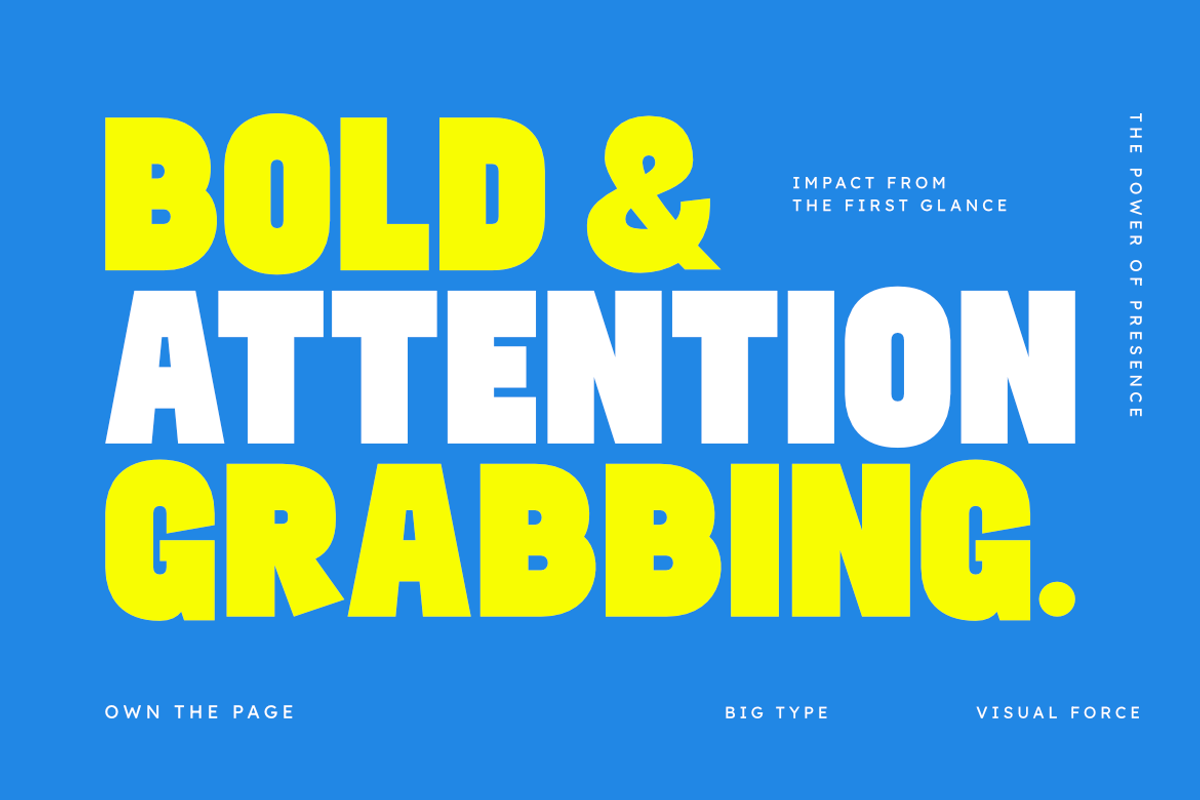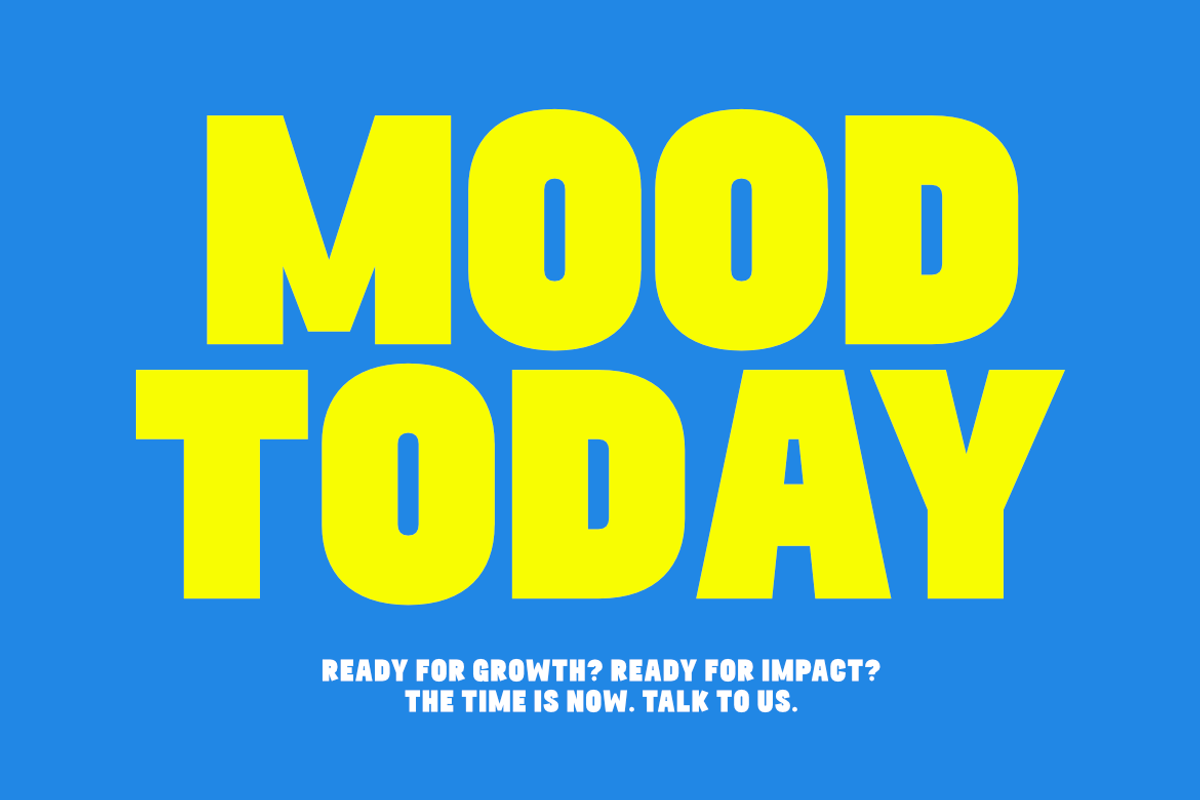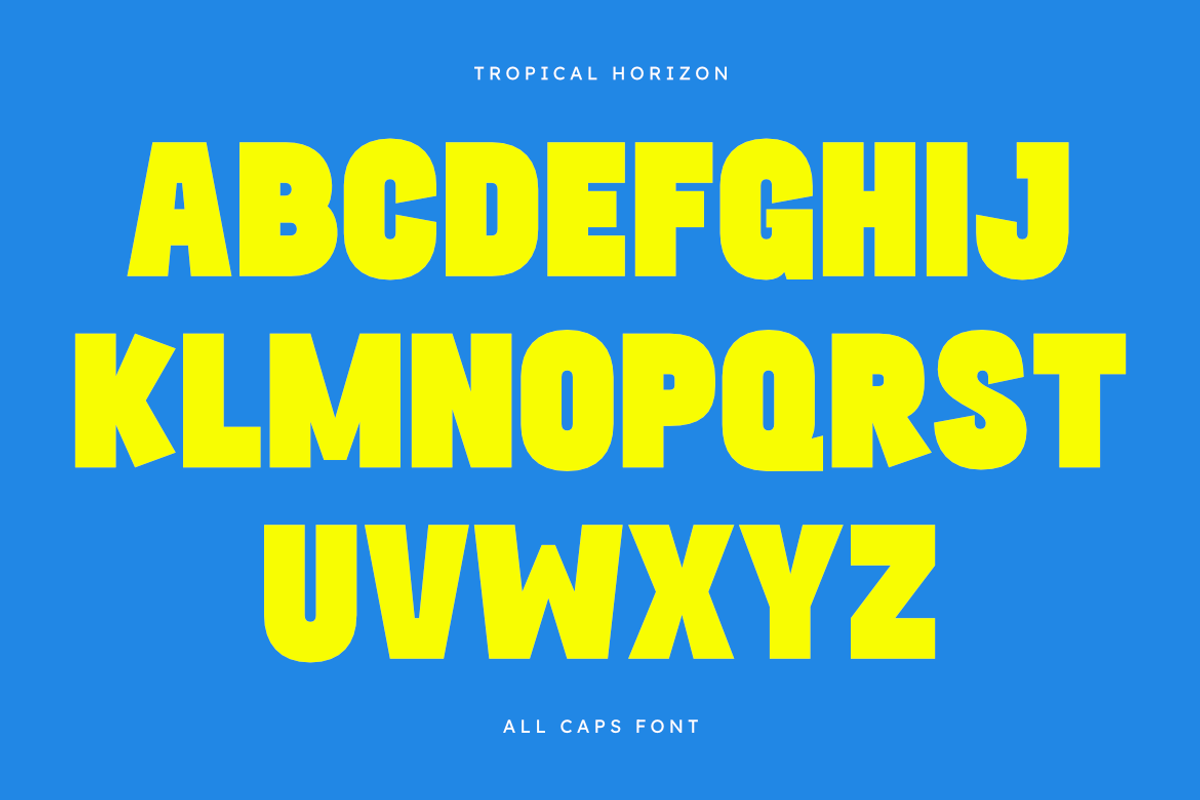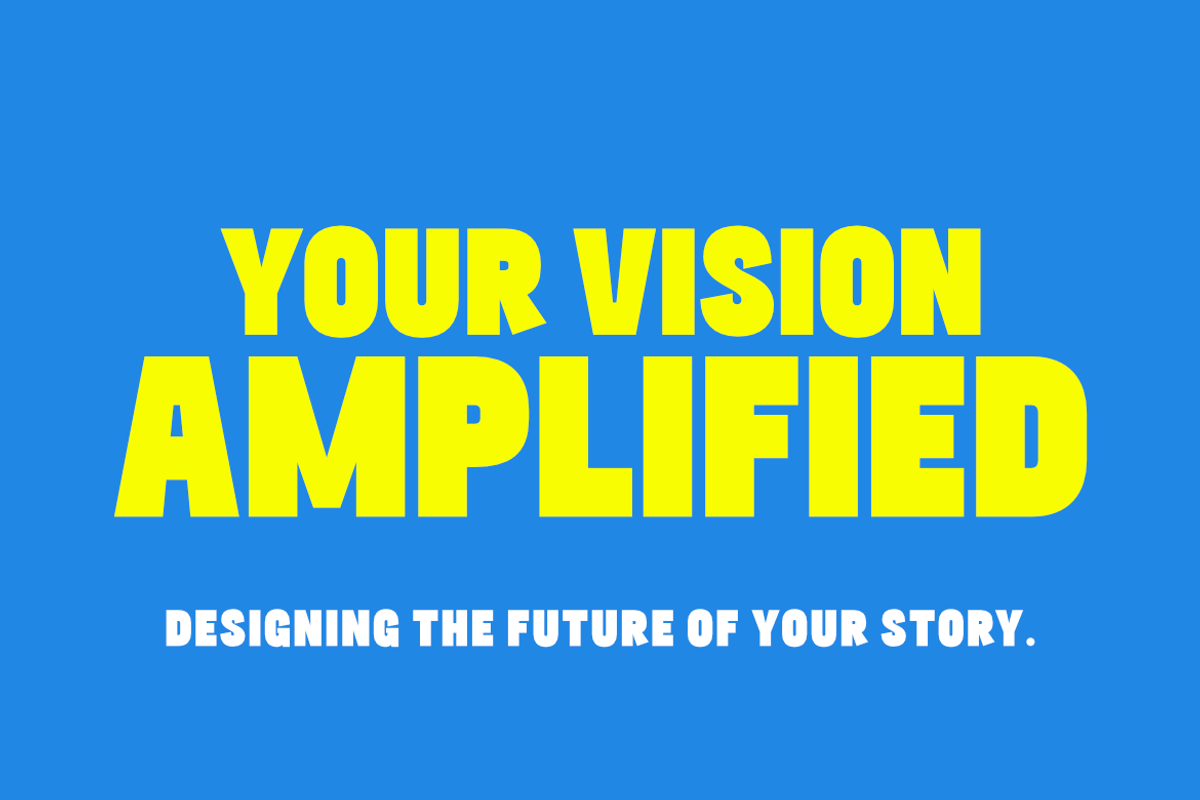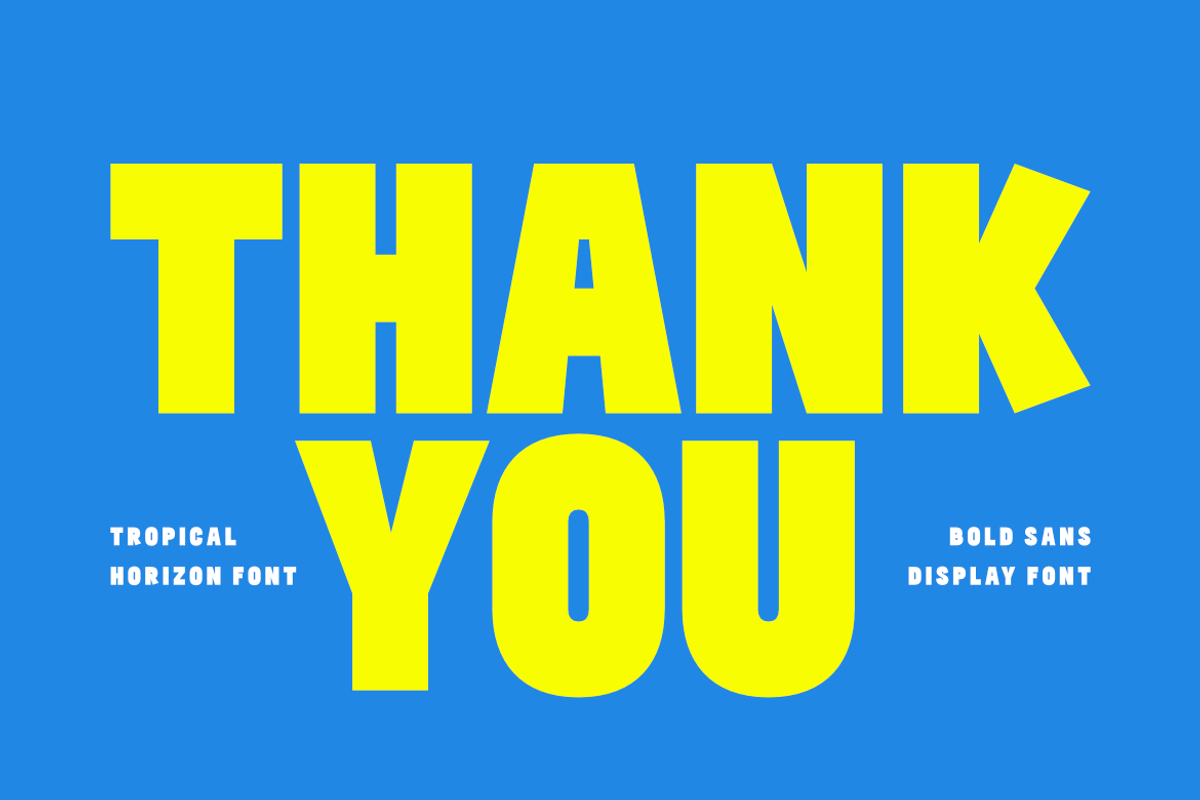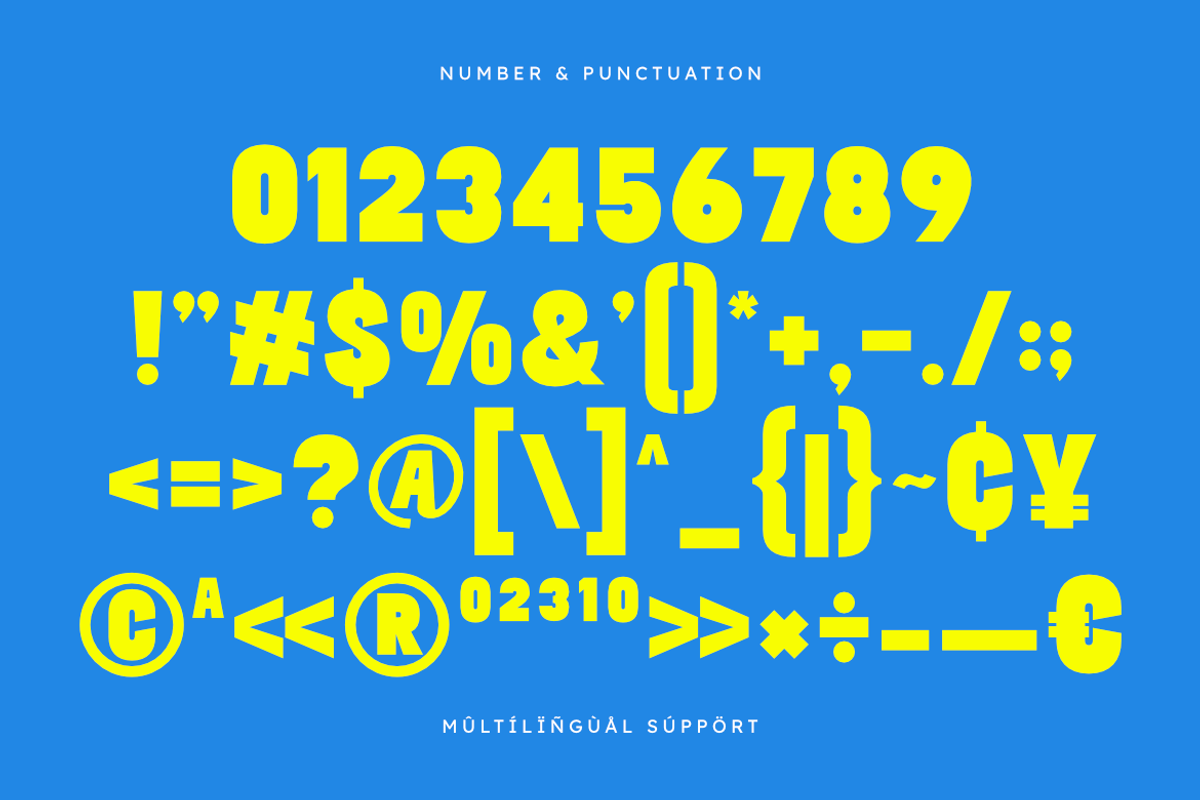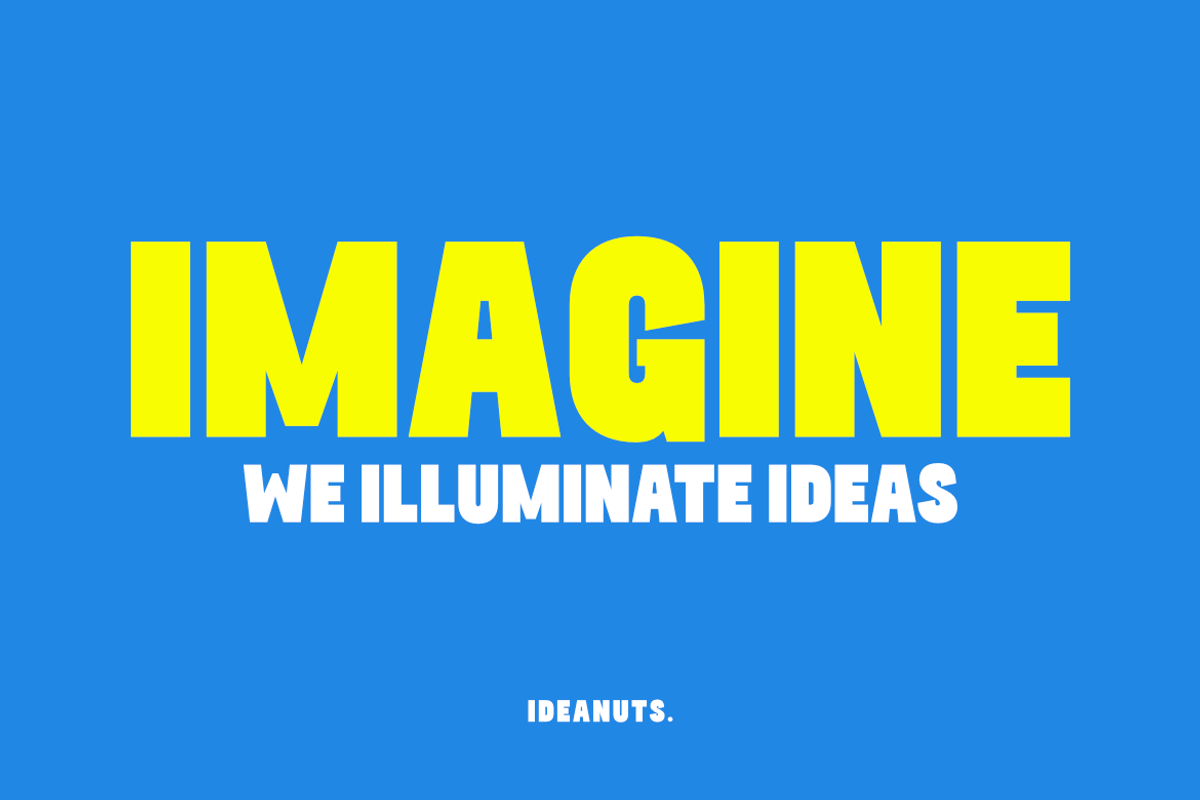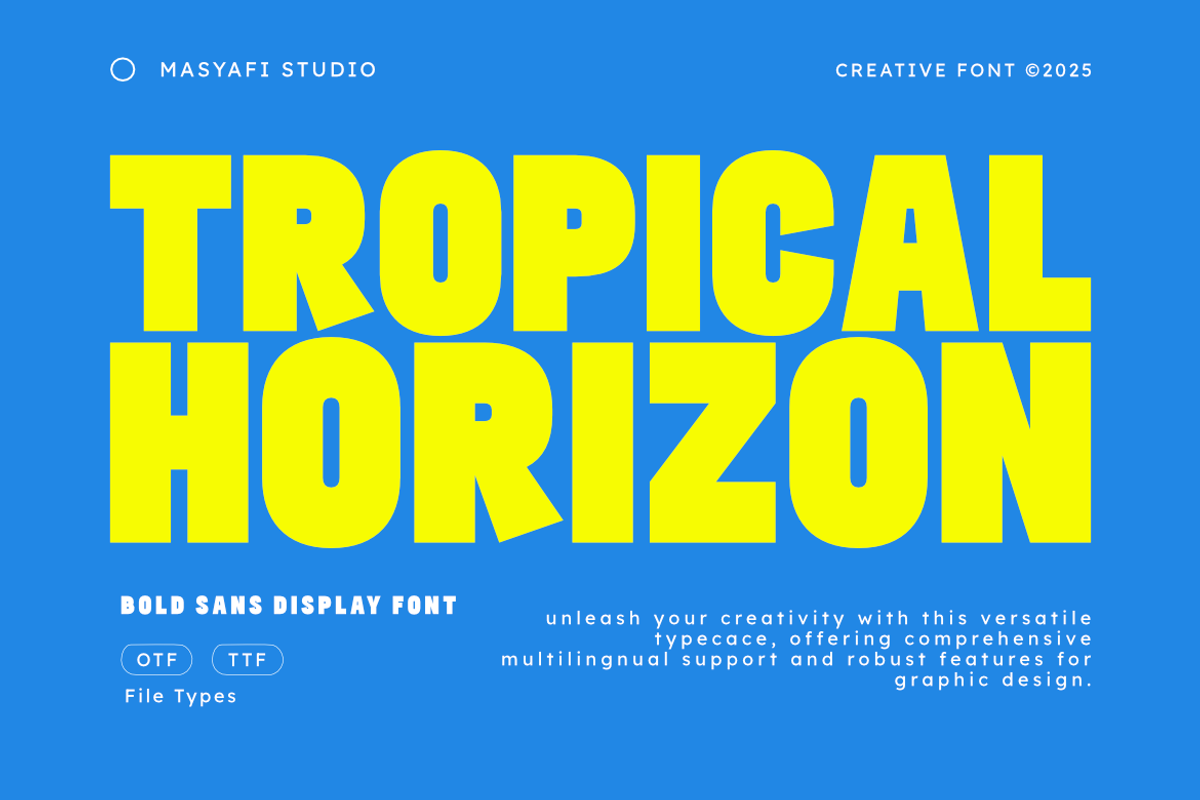
Tropical Horizon - Bold Sans Display
Introducing Tropical Horizon — a bold Sans Display Font bursting with sunshine, energy, and confidence. Inspired by summer posters, beach clubs, and playful urban graphics, Tropical Horizon combines heavy letterforms with soft rounded details to create a loud yet friendly visual impact.
This typeface is perfect for eye-catching headlines, social media graphics, packaging, and branding projects that need a fun, vibrant, and modern personality. Whether you’re designing party flyers, travel promotions, YouTube thumbnails, or lifestyle merch, Tropical Horizon ensures your message stands out with tropical flair and strong readability.
Bring summer vibes into your design toolkit with Tropical Horizon — big, bright, and impossible to ignore.
Perfect For Summer & Beach Posters Party Flyers & Event Titles Travel & Vacation Branding Social Media Graphics YouTube Thumbnails & Covers